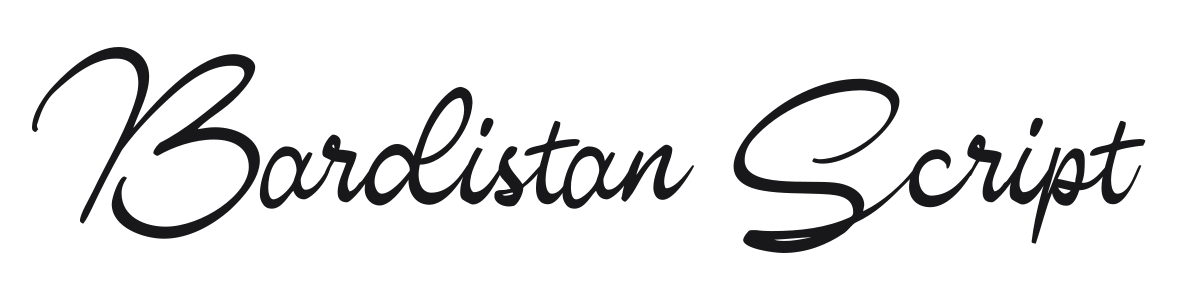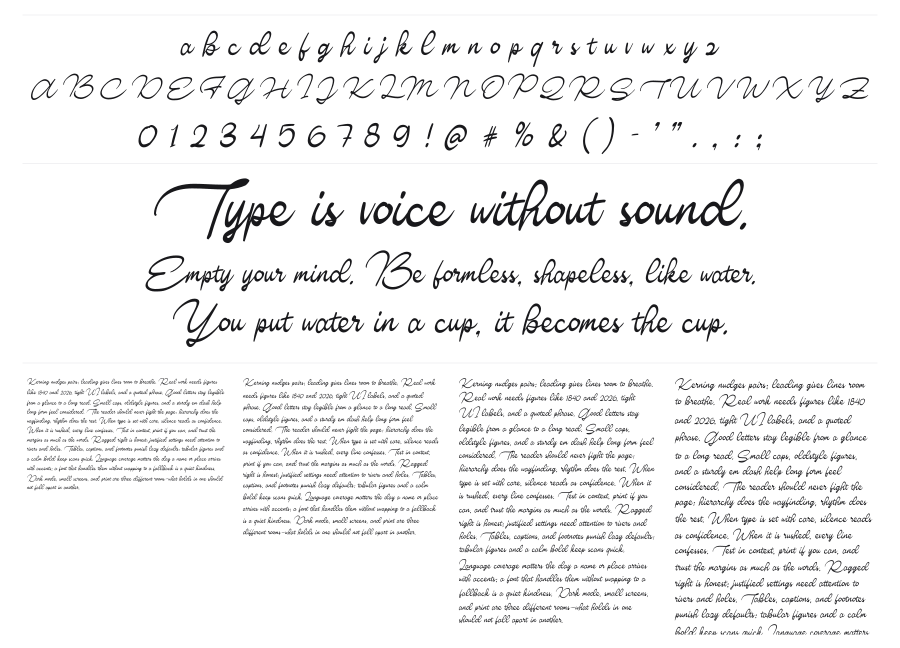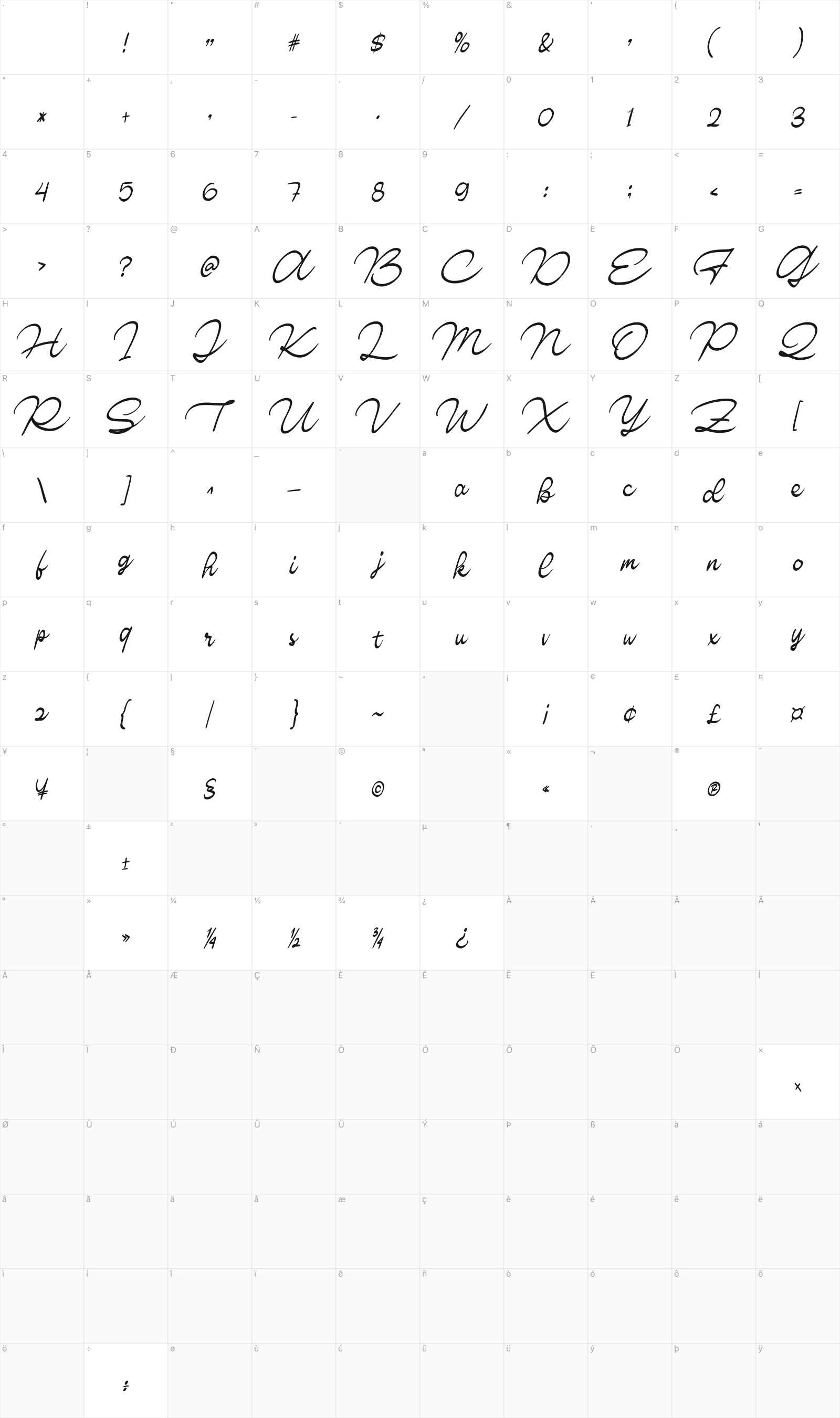
Bardistan Script
Bardistan Script is a casual connected cursive with a natural, pen-written feel and smooth flowing joins. Looped ascenders and descenders give it a bouncy energy that sits comfortably between a handwritten note and a polished brush script. It reads as friendly and approachable, suited to branding, packaging, and logotype work where warmth matters.